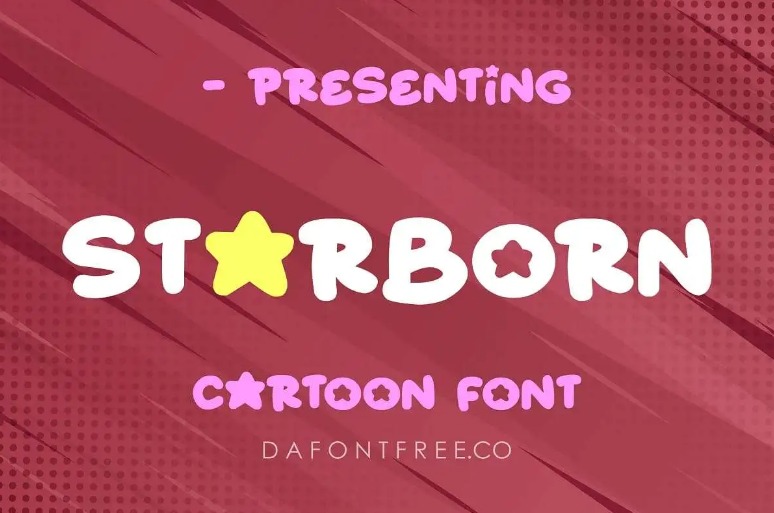
Presenting Starborn Font, The Fancy Cartoon Style
Identical with bold and eyecatching style, the Starborn font looks majesty with intricate details, making it visually appealing at any size. What’s more, the presence of star elements gives a sense of whimsy as well as contributes to a cute and unique marker style. Then, let’s dive deeper into Starborn through the explanation below!
Get To Know Starborn Font
Created by Darrel Flood, this typeface is stunning with all its special lettering strokes. Additionally, the well-balanced proportions and delicate curves give a sophisticated yet interesting appearance.
To make it stand out, the typeface is made by varying weights and the letter is well-spaced. No need to worry about readability, because you can read the entire text clearly, even though it classifies as small elaborate designs.
Despite being part of the cartoon family, this font family is surprisingly versatile and offers a suitable option for other wonderful design projects. Whether you need a modish and modern for a wedding invitation or a conspicuous font for a poster, Starborn can be the perfect combo.
However, only using this font is insufficient due to its multifunctionality and incredibly beautiful shape. Try experimenting with other types of fonts that have a perfect similarity to avoid boredom. What are the alternative fonts? Check out the following post!
The Starborn Alternative Font For Wonderful Designs
Looking for an alternative font that is the same as Starborn should not be taken lightly. Fortunately, Creatype Studio offers various types of fonts that are suitable for your project. Here are twelve of the best fonts that you can try on!
1. Starshy Font
Starshy Font
Being a modern brush font, Starshy stands brawny with bold yet scratch-looking strokes at the edges of the alphabet. Besides, Starshy looks cool and iconic with an extraordinary authentic feel. Apart from that, this typeface appears with upper and lowercase characters and lots of glyphs which makes it non-monotonous and legible.
2. The Brown Fox Font
The Brown Fox Font
The next choice is Brown Fox, the second alternative script font so far. It is a versatile and ideal typeface for turning any plain texture into stylish characters. Whilst the upper and lowercase characters look ordinary, the long ligature and swash give an extraordinarily bold impression. Hence, it surely captures the audience’s attention.
3. Hello Sunny Font
Hello Sunny Font
As the name suggests, Hello Sunny is a charming, vivacious, and appealing typeface. With its ton of quirky character and wonderful ligature, Hello Sunny is the best suit for any children’s occasion or even the summer event project.
4. Lemony Font
Lemony Font
Grab this typeface to add a cute bouncy taste to your dazzling design project. Interestingly, Lemony has aesthetic ligatures that connect the characters smoothly for an elegant display font quality which also makes it appear as of Starborn font copy and paste. For an amazing vibe, you can check this in Creatype Studio.
5. Rockys Font
Rockys Font
Getting ready to convey authentic style masterpieces? Easy, the Rockys’ distinctive strokes along with its bold scratch build the natural vibes.
6. Yearbook Joyful Font
Yearbook Joyful Font
Fall in love with the Yearbook Joyful brush font will never go wrong! As you can see, the typeface depicts happy euphoria. Both upper and lowercase appear gorgeous, but there are visual dots inside.
7. Mandaly Font
Mandaly Font
You know the vibe, the Mandaly creates a feeling of relaxation and calm in the crib of a typeface. It is typically a display font with a character style that swells and slims into a single unique unit.
8. Sunquish Font
Sunquish Font
Here it is, the Sunquish, the fresh hand brush font in this century. Incredibly neat, Sunquish typeface can beautify your writing for sure. The ligature flow is very tight but not too excessive, hence it can build the reader’s ambition.
9. Grayson Font
Grayson Font
The next alternative to Starborn font is Grayson. Generally, it is a textured fun brush typeface that has a bunch of ligatures and modish alternates. Like snowdrops, the characters present a hollow effect with a futuristic touch.
10. Rascall Font
Rascall Font
Unveiling Rascall, is a perfect font kit for any projects that need sans serif touch. This flowing typeface in a long style gives any masterpiece the attention it deserves.